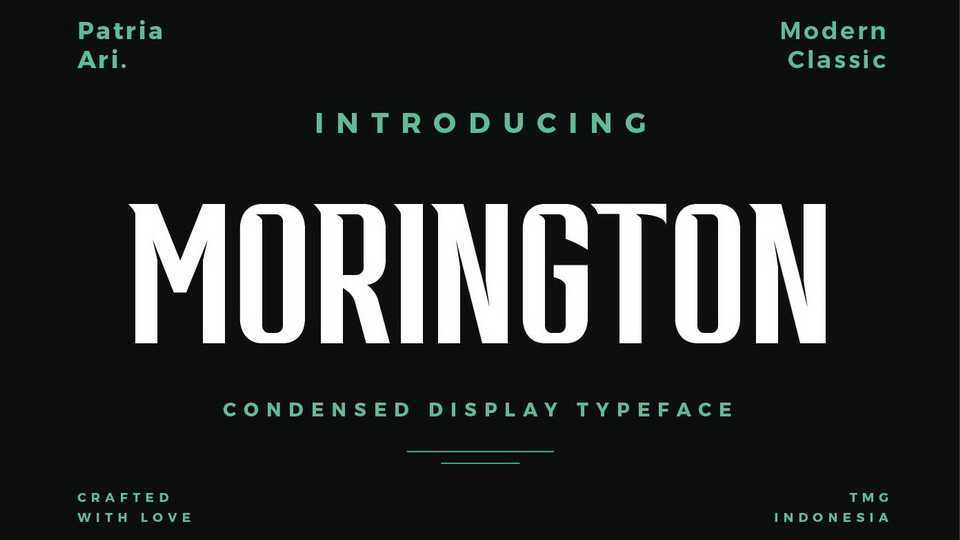
Download Morington font, a condensed serif typeface with strong characters to support your brand/project. Morington can be used in modern theme and also in classic theme.